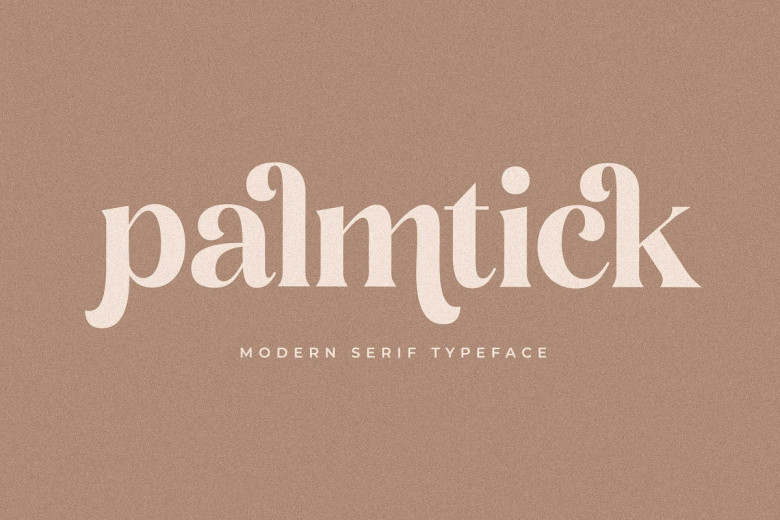
Palmtick Font
Palmtick features an elegant and contemporary serif that has a fashionable and unique appearance, ideal for luxury logo designs, fashion labels, clothing labels, magazines titles and book titles, lettering quotes. This typeface can also be used in logo design.
Palmtick Modern Serif Font